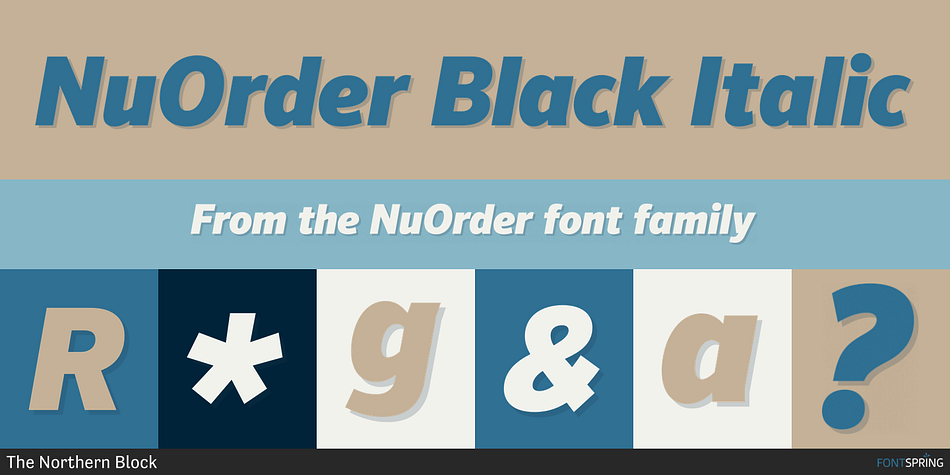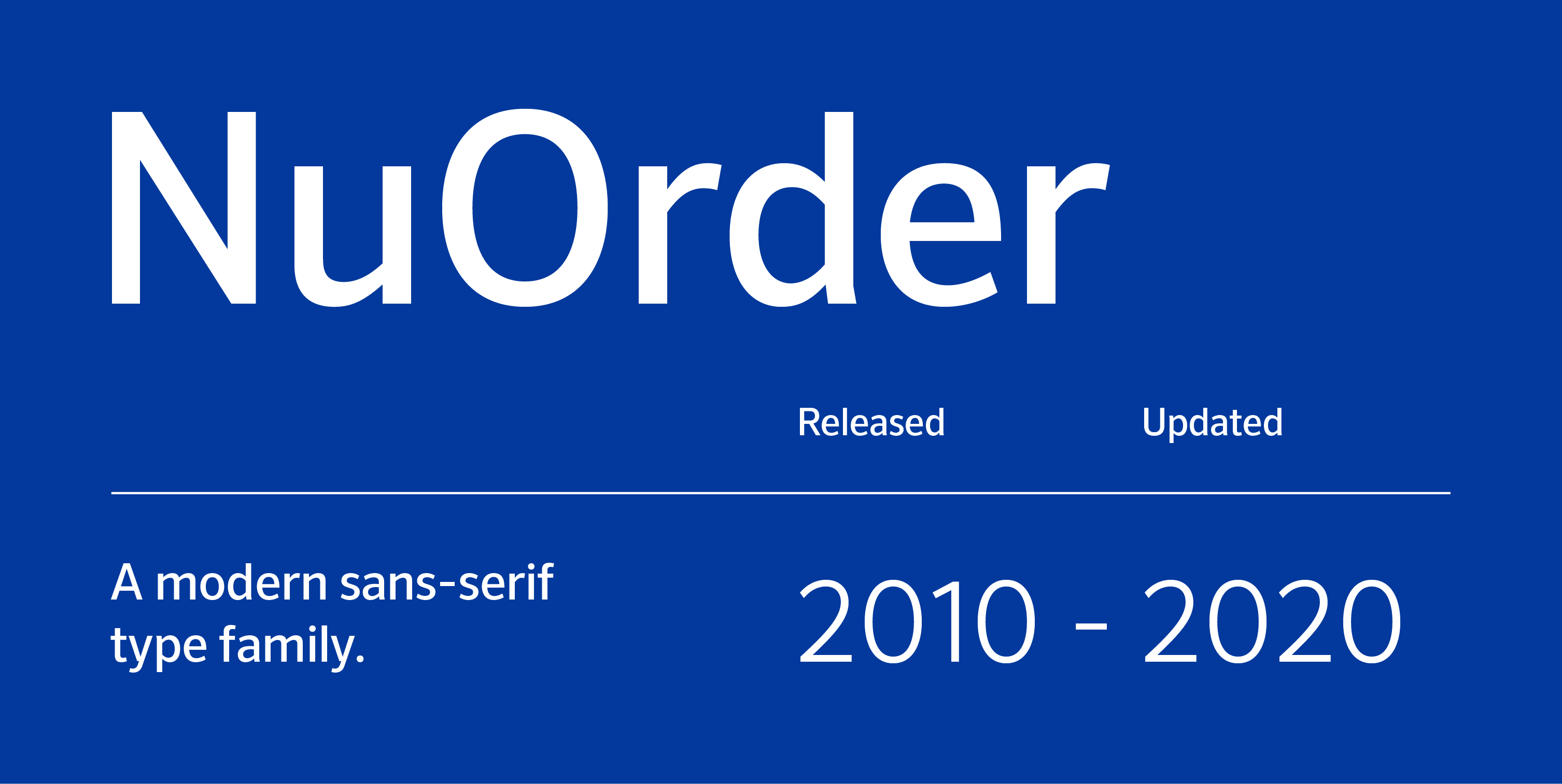
NuOrder Black Italic
NuOrder is a sans serif font family. This typeface has eighteen styles and was published by The Northern Block.
A modern sans-serif typeface. Geometric forms taken from early grotesque styles are combined with humanist elements to create a precise and legible typeface. Details include 9 harmonious weights with italics, a complete character set, manually edited kerning and Euro symbol.